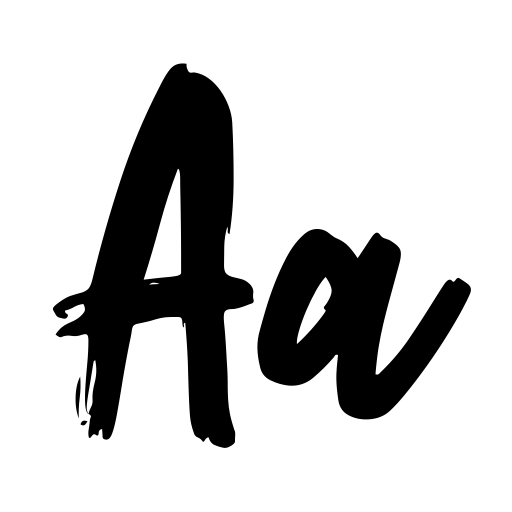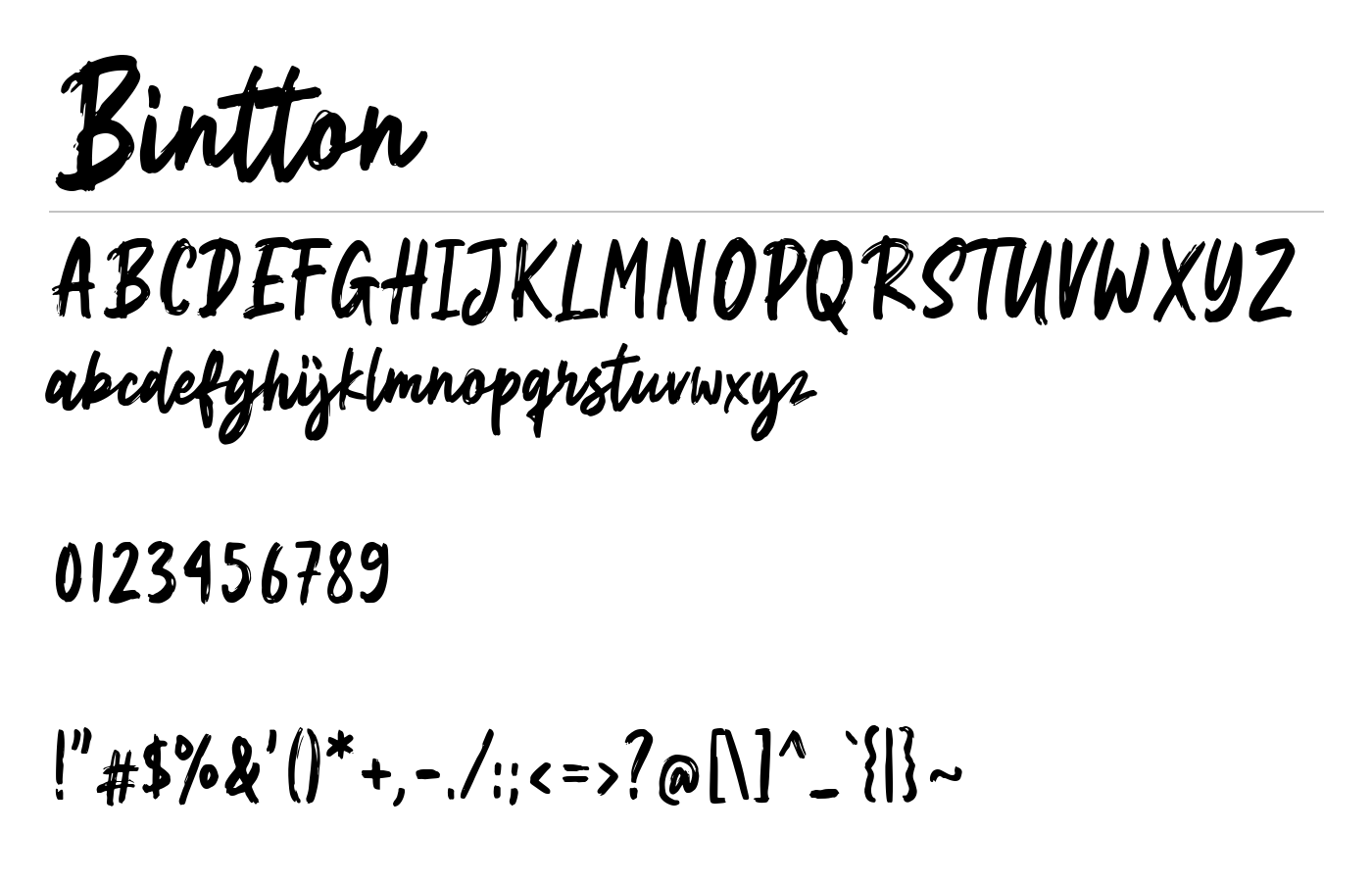
Bintton is a lively, casual brush script font with a bold, textured stroke that gives it an energetic and hand-painted feel. Its moderately tall x-height and slightly irregular shapes make it perfect for creative, playful designs that want to appear friendly and approachable. This font works great for logos, posters, and branding that seek a personal touch with a youthful and artistic vibe.
Bintton Font
About Bintton Font